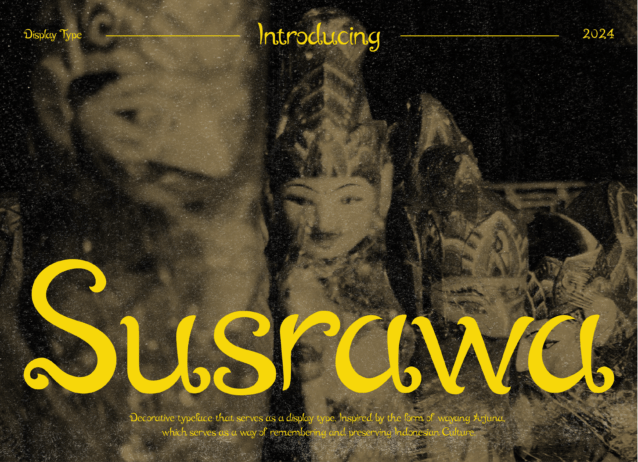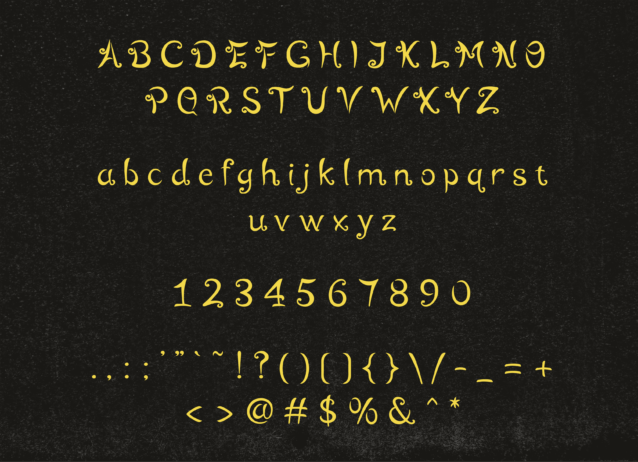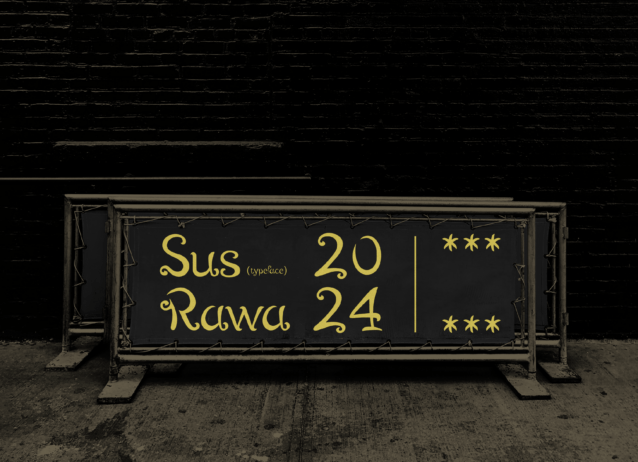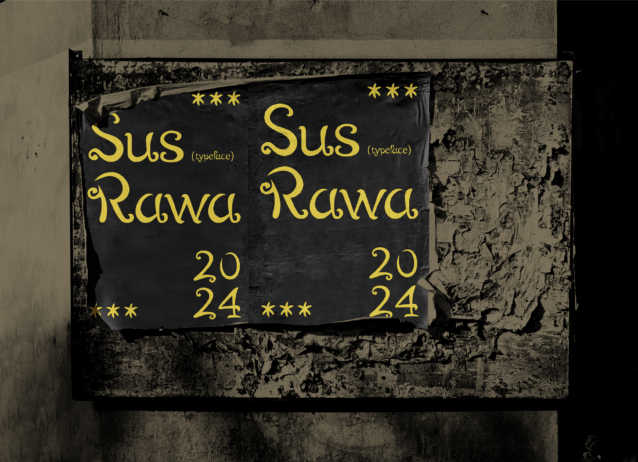
Susrawa Display Font is a decorative typeface that serves as a display type. Inspired by the form of wayang Arjuna, that serves as a way of remembering and preserving Indonesian Culture. Susrawa is suitable for headline in an ancient and cultural design.